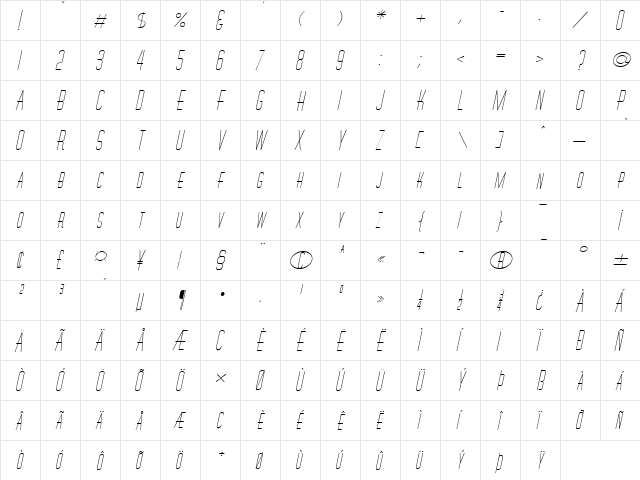
Wire-Extended Italic
Design Context for Wire-Extended Typeface
Wire-Extended offers clean, dependable letterforms without strong stylistic allegiance, making it a practical choice for designers who need flexibility. The slanted form adds forward momentum and visual energy.
Pro Tip: Use Wire-Extended for emphasis, pull quotes, and subheadings where its slanted energy can add rhythm to the layout.